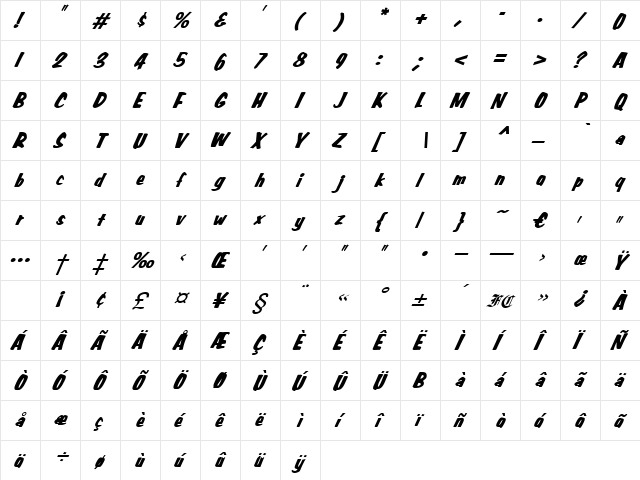
JungleItalic Regular
Design Context for JungleItalic Typeface
JungleItalic is a composed and adaptable typeface that performs quietly and consistently across a wide range of design contexts. The dynamic lean of this cut emphasises speed and emphasis in any layout.
Pro Tip: Use JungleItalic for emphasis, pull quotes, and subheadings where its slanted energy can add rhythm to the layout.